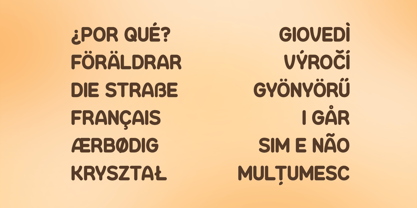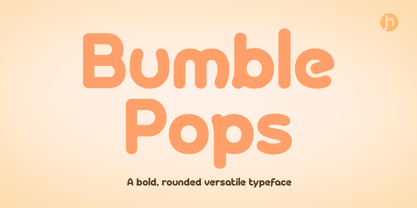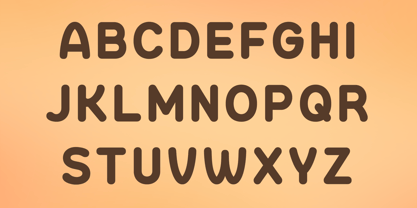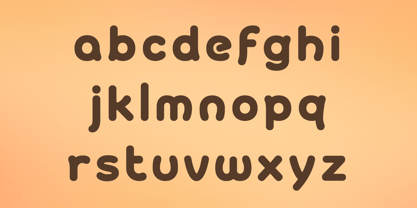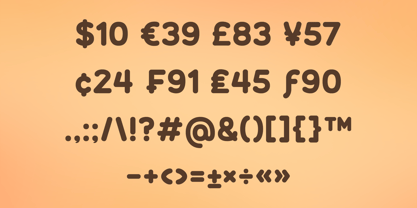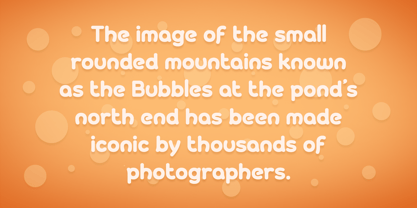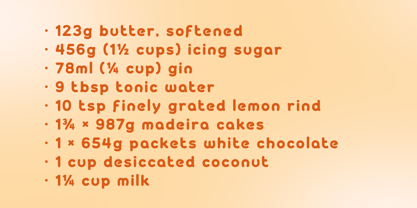
Bumblepops
by Joe Hewitt Design
The Bumblepops Font Family was designed by Joe Hewitt and published by Joe Hewitt Design. Bumblepops contains 1 styles.
Welcome to the Bumble Pops typeface. A rounded font with versatility at its heart. The rounded stems help to spark a playful, creative style that will never go out of fashion. It can be used for both bold headers and the main body of text. Bumble Pops works perfectly in many design projects and software. Procreate, Cricut designs, posters, boho themes, logos, social media, branding, greetings cards and much more.